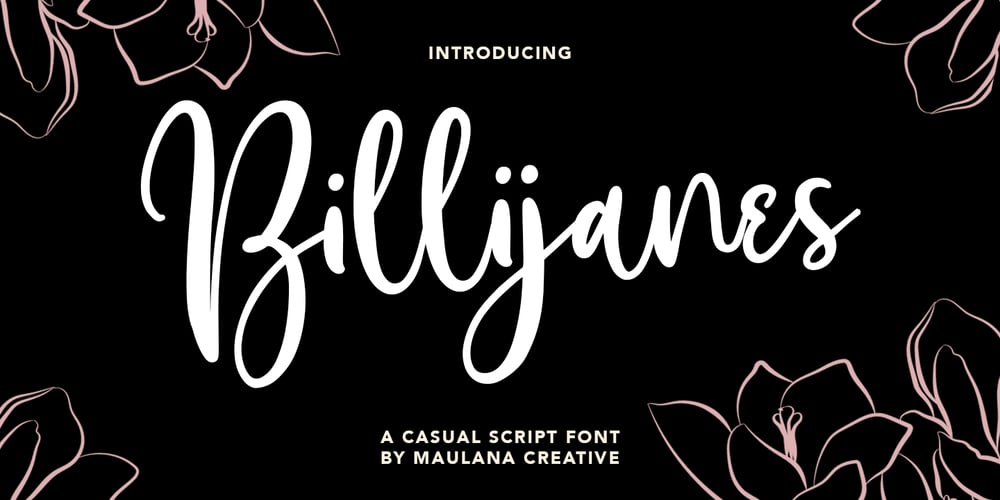
Billijanes Font Family was designed by Gilang Maulana and published by Maulana Creative. Billijanes contains 1 styles and family package options. Billijanes is a modern calligraphy script font. It’s a clean store with high contrast line. It readable in short text. Billijanes includes opentype features ligatures and lowercase. It support multilingual more than 100+ language. This font is good for logo design, Movie Titles, Books Titles and any awesome project you create. Make a stunning work with Billijanes script font. Thanks for use this font,Maulana Creative